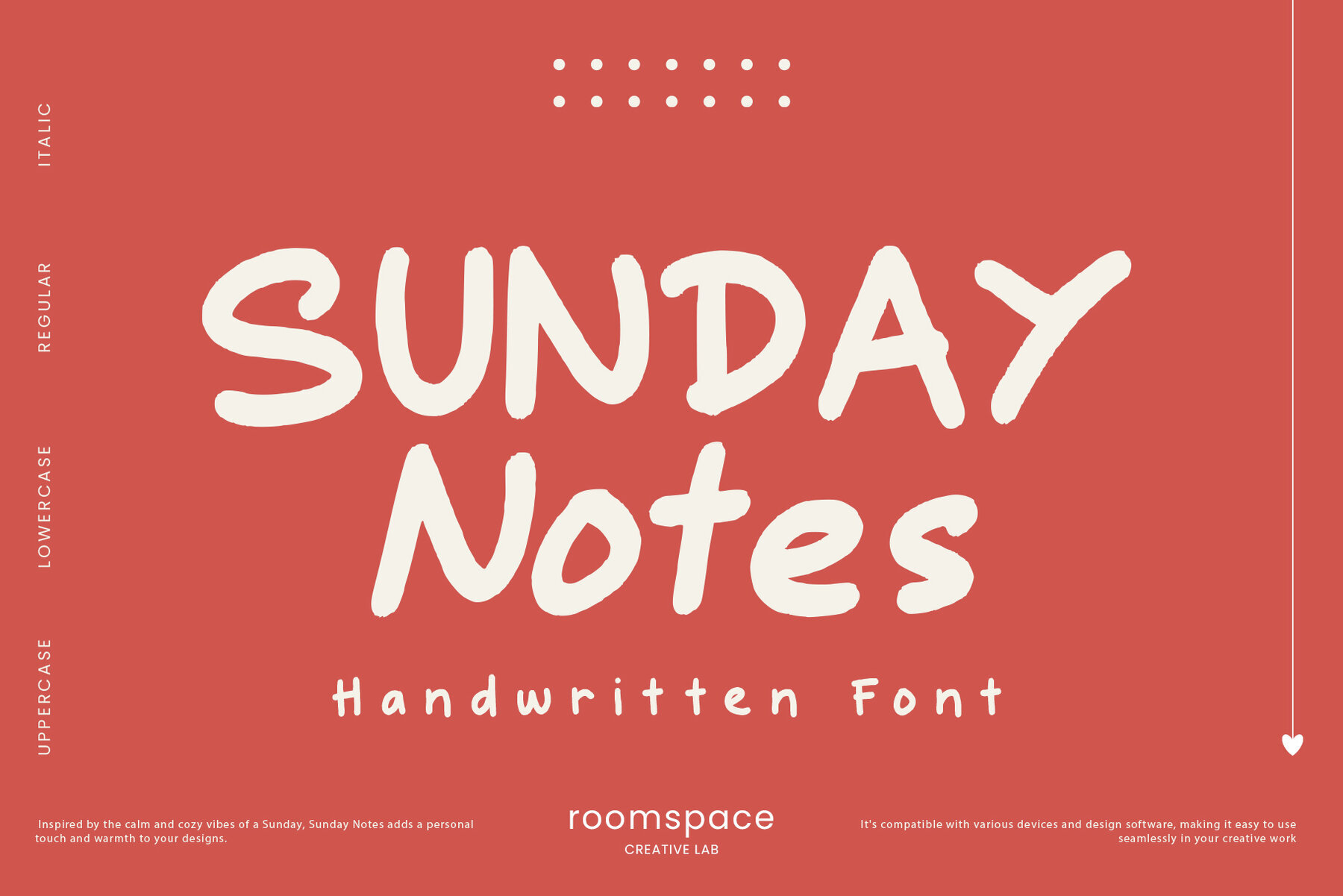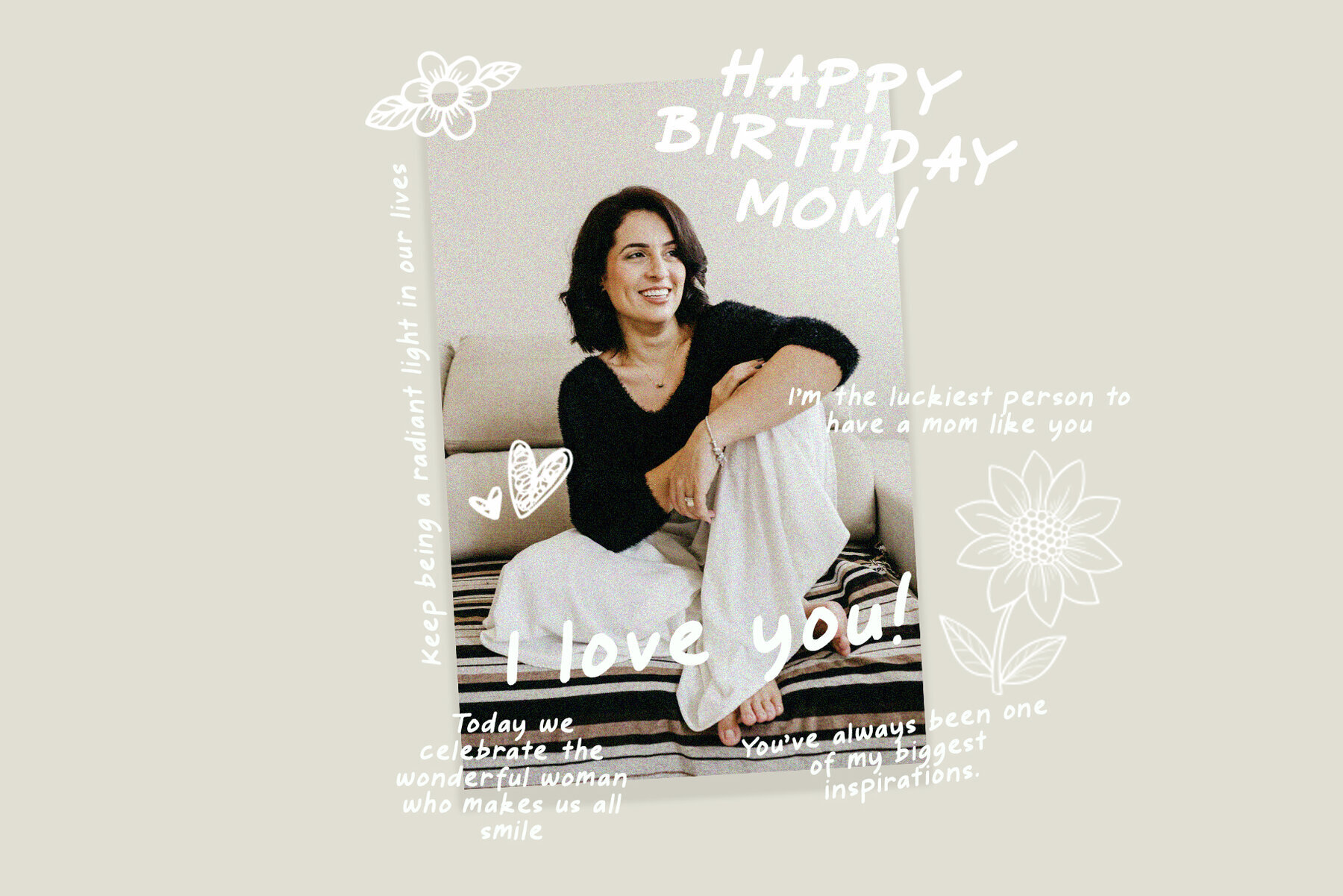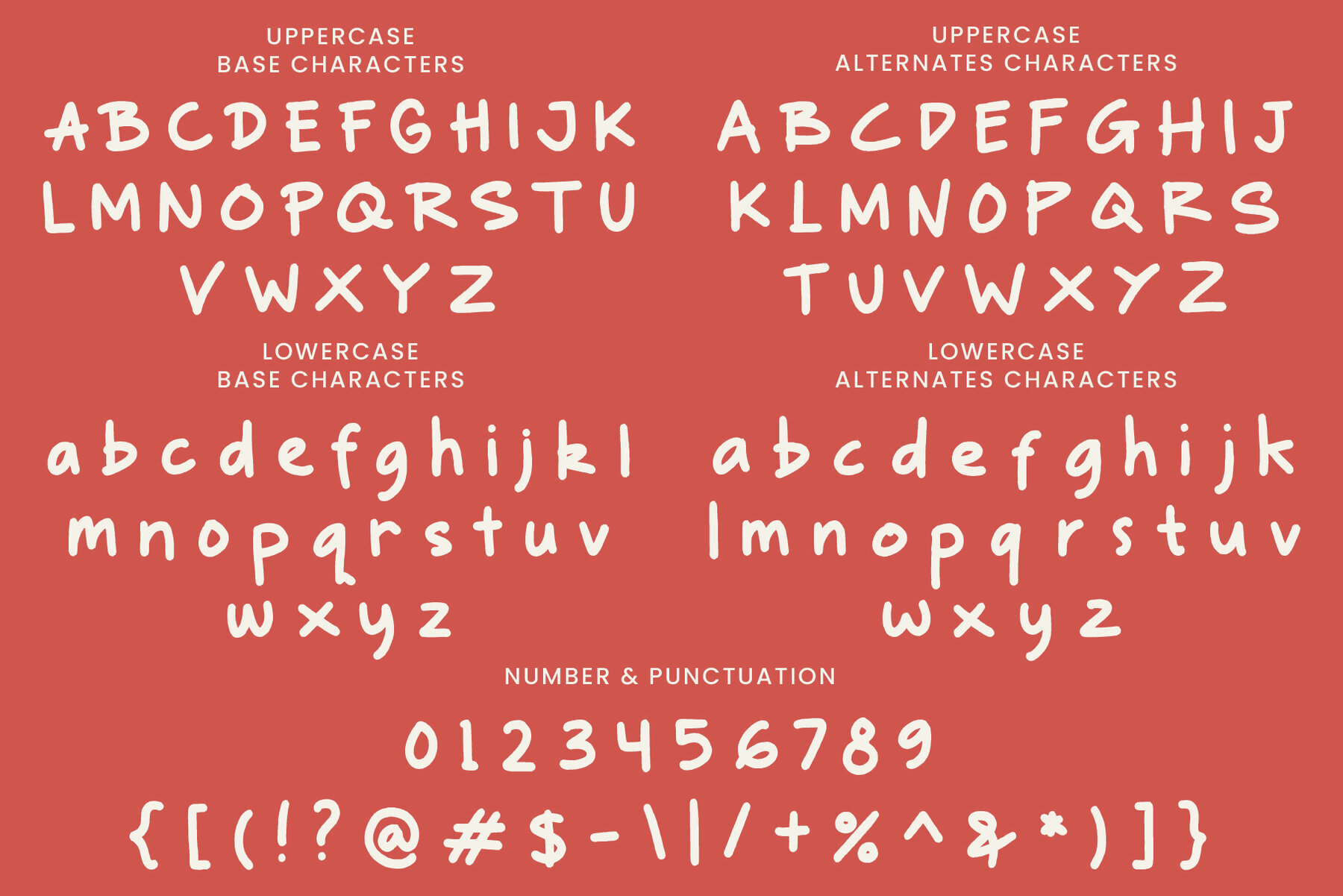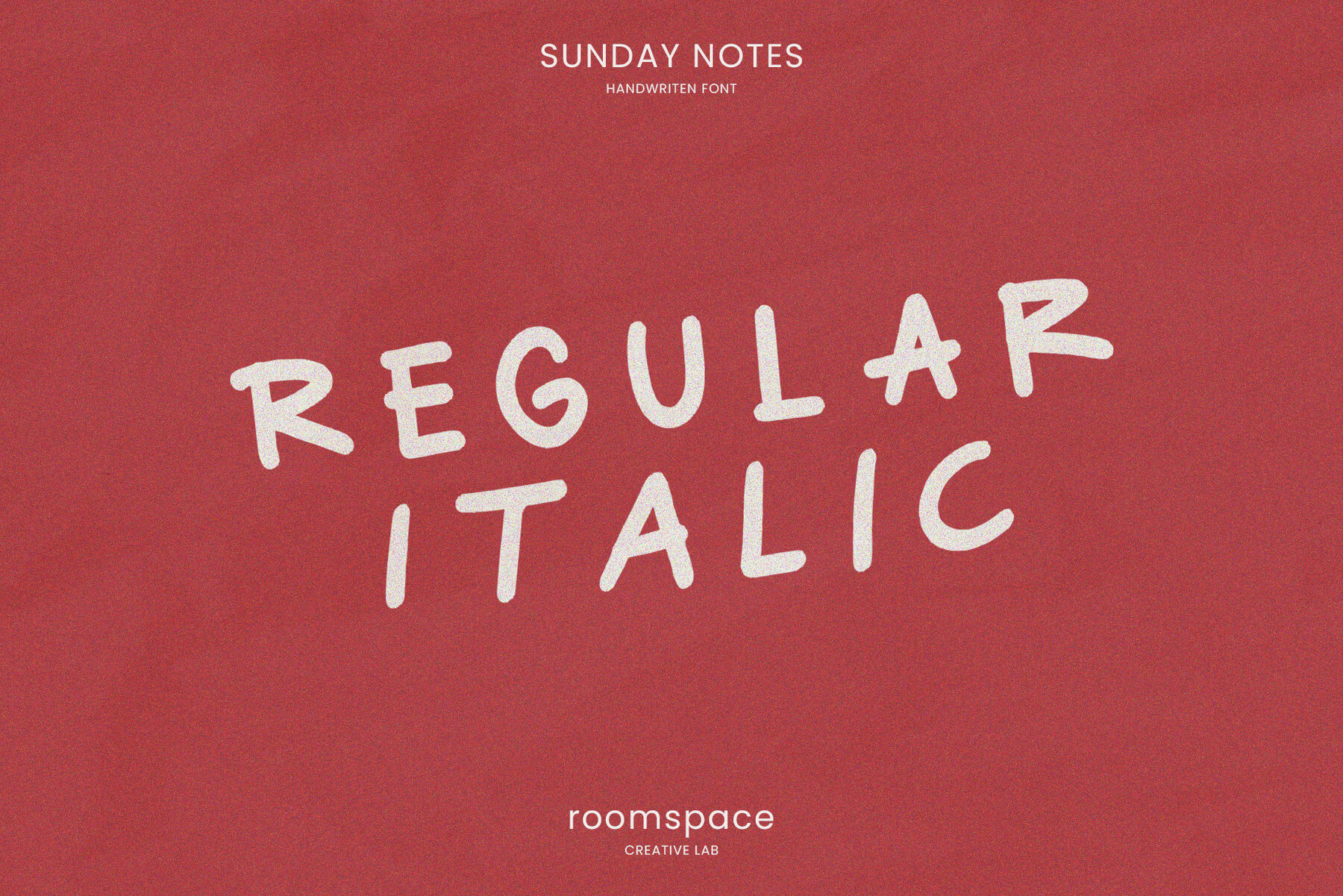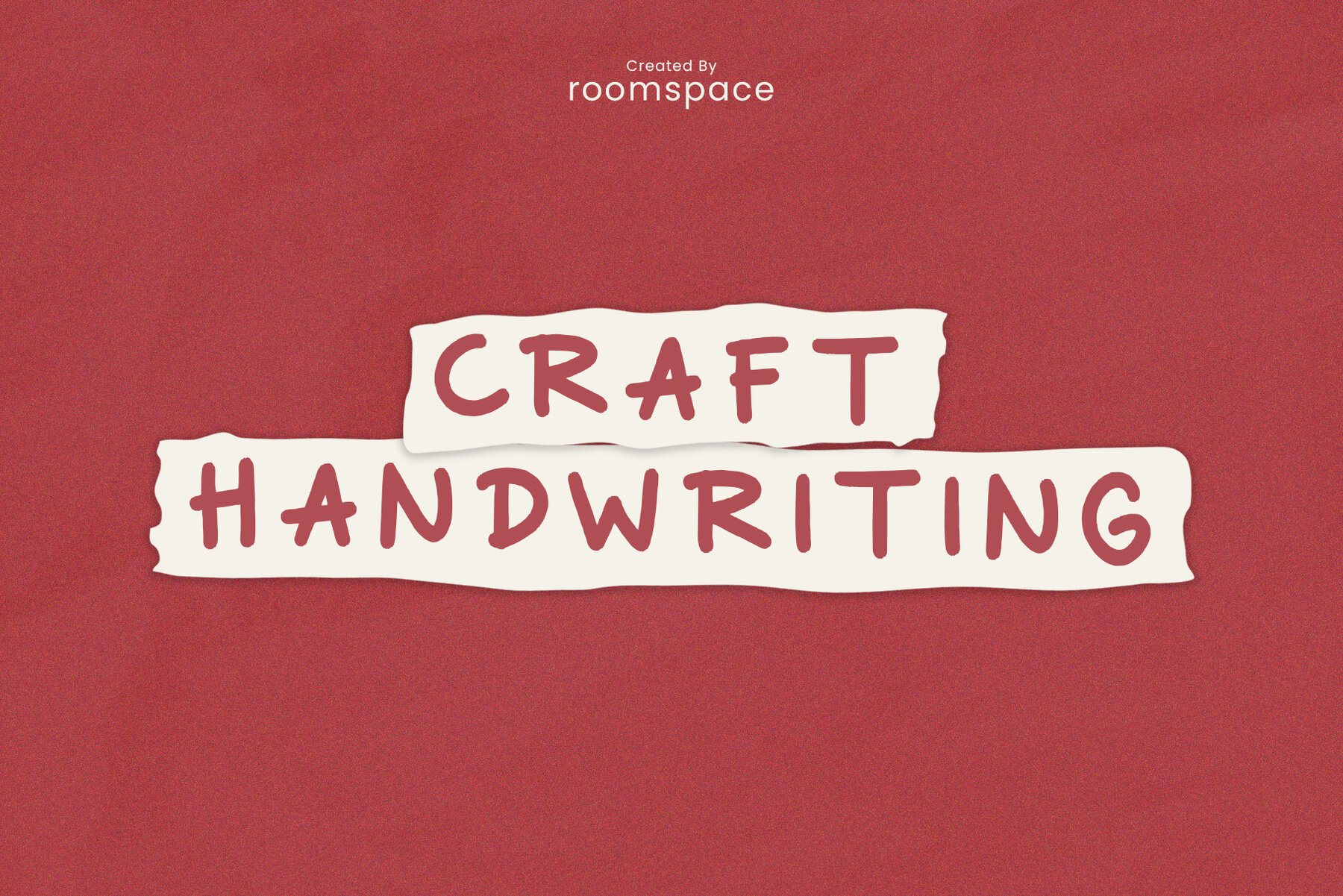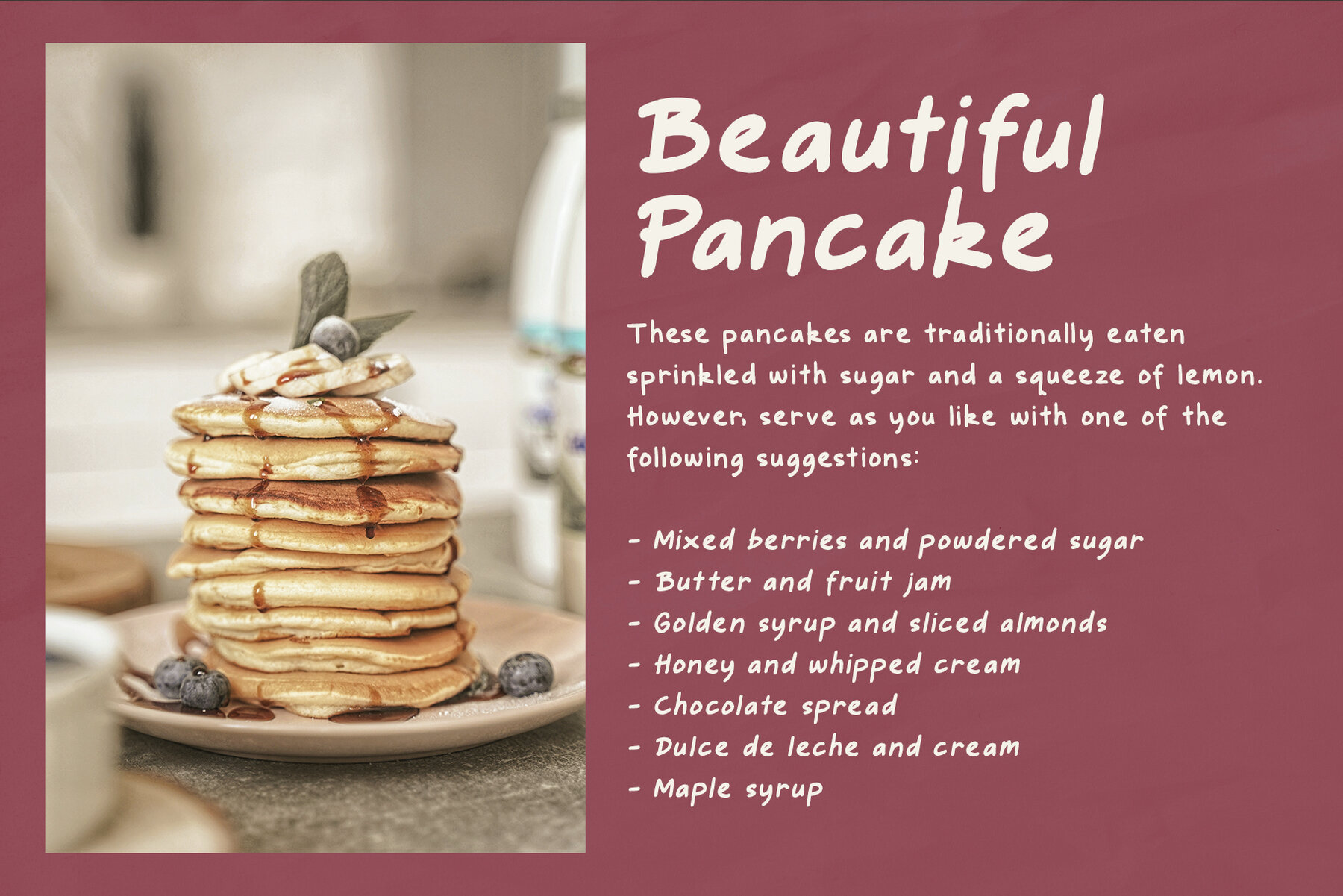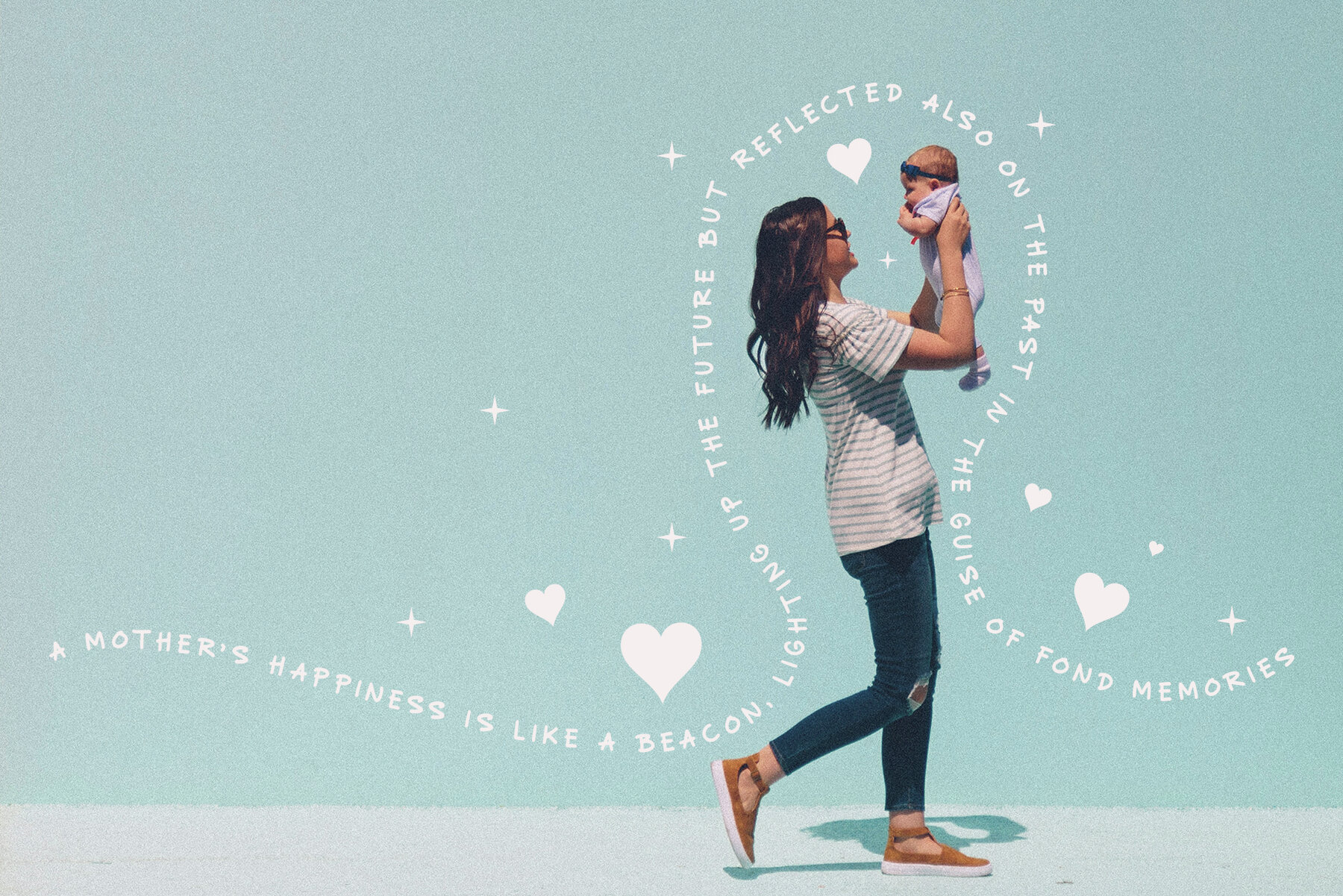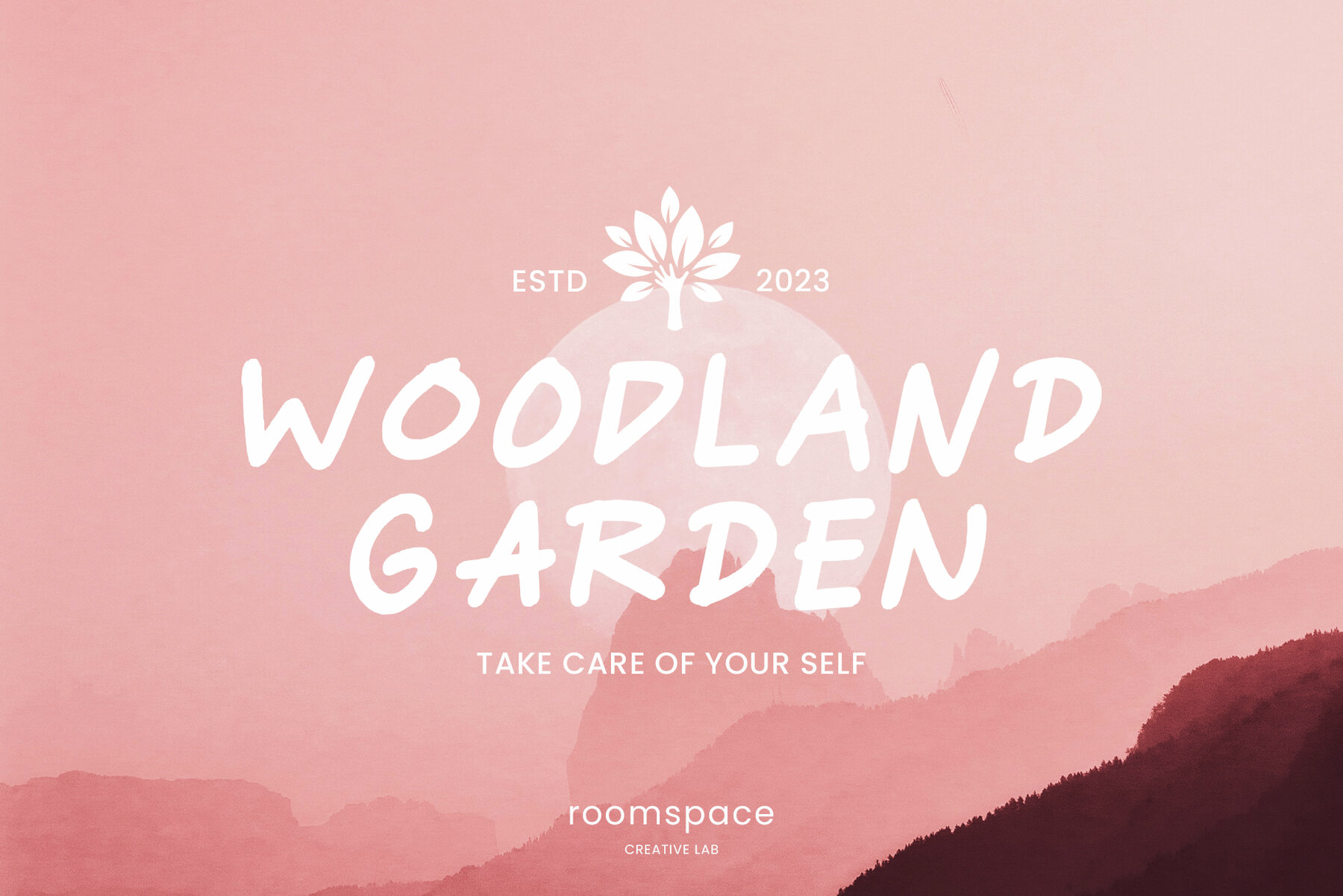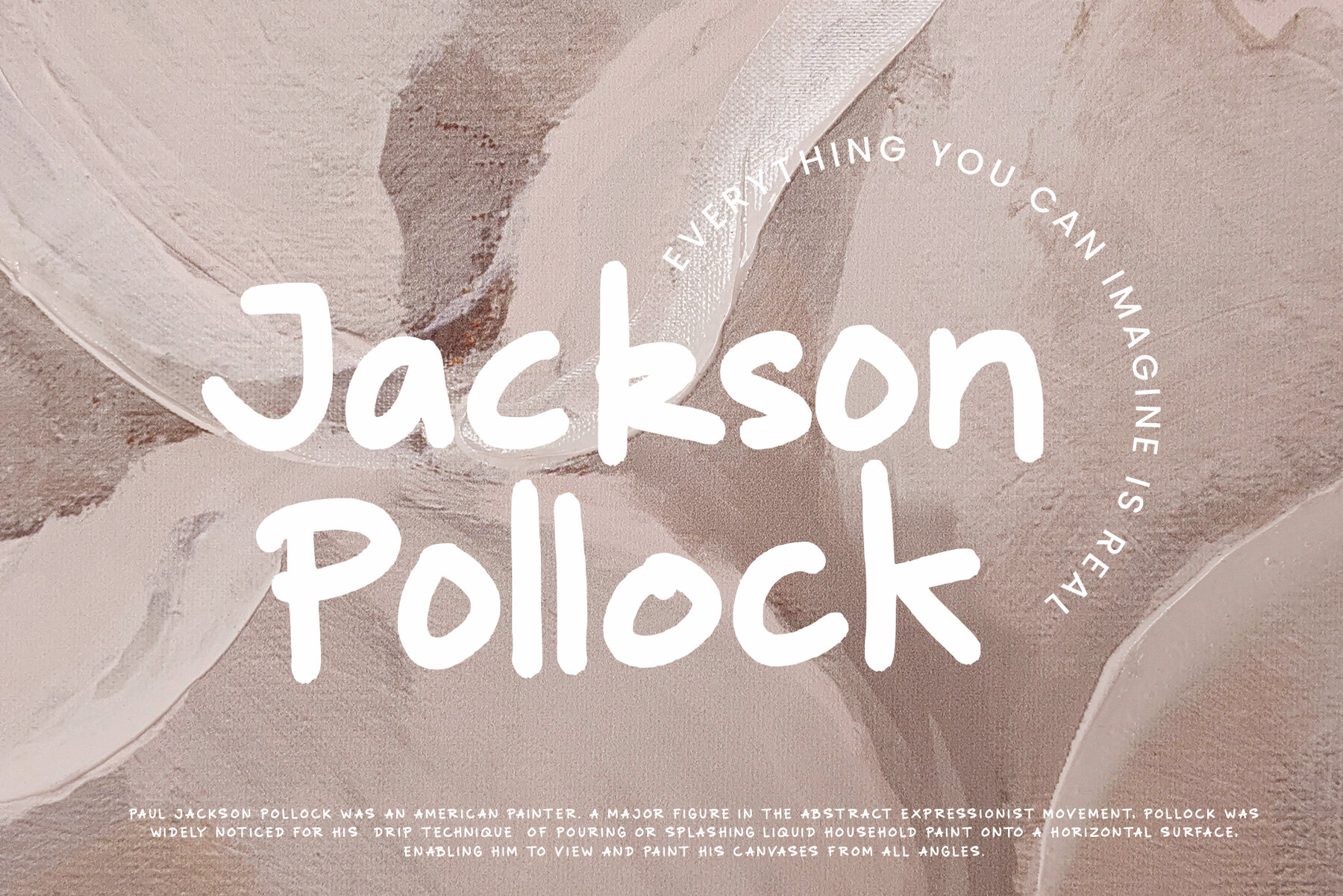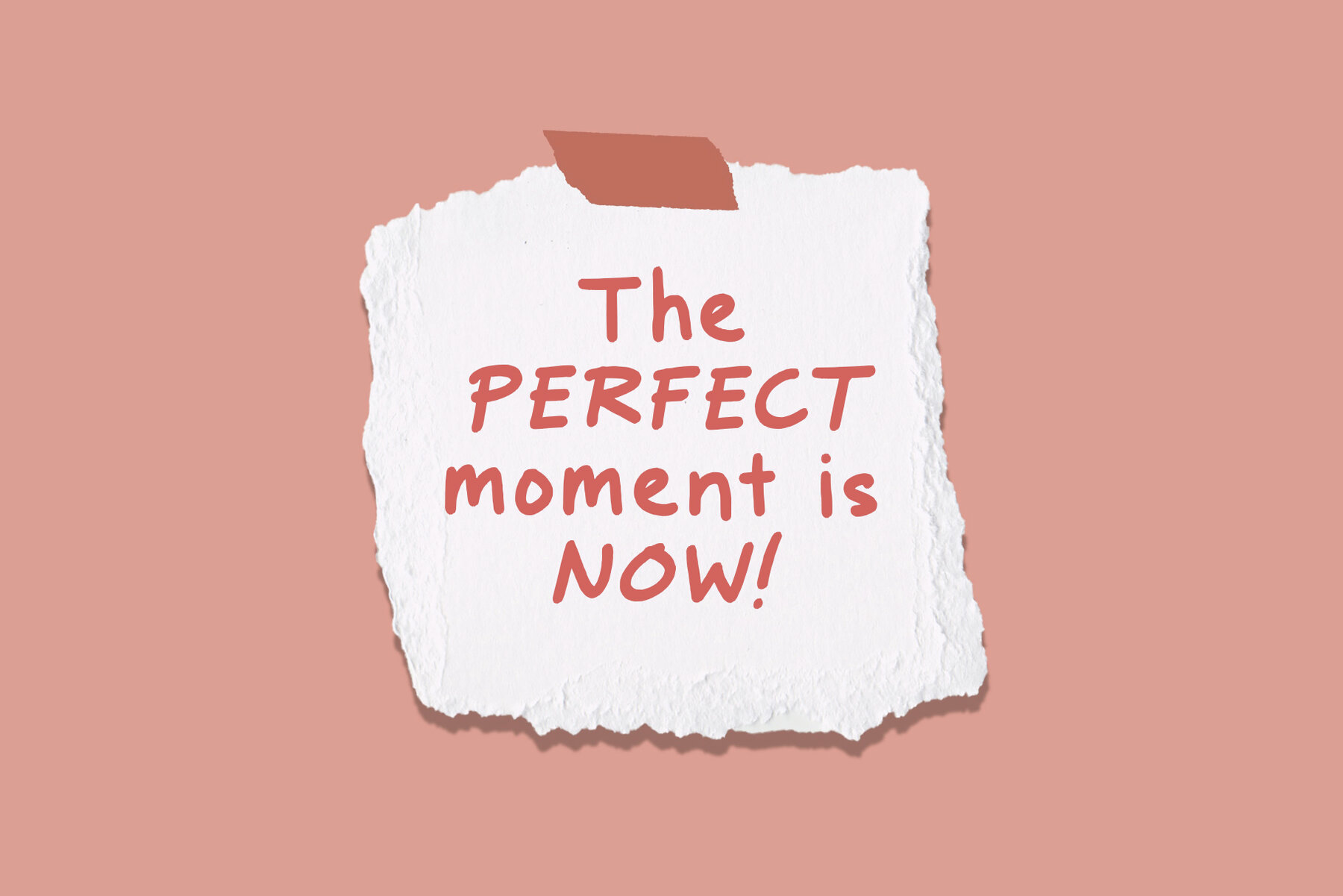
Sunday Notes Font
Introducing Sunday Notes, a unique and beautiful handwritten font crafted with love and precision. This font offers a relaxed and friendly writing style, perfect for your creative projects. Inspired by the calm and cozy vibes of a Sunday, Sunday Notes adds a personal touch and warmth to your designs. Sunday Notes comes in two main variations: Regular and Italic, allowing you to express your creativity even more. Each letter in this font also offers multiple alternatives, providing flexibility to create captivating and eye-catching text. With Sunday Notes, you can bring a warm and friendly atmosphere to projects like logo design, greeting cards, invitations, merchandise, websites, and more. It's compatible with various devices and design software, making it easy to use seamlessly in your creative work. Whether you're a professional designer or an art enthusiast, Sunday Notes is the perfect choice to add a personal touch and beauty to your projects. Let's create stunning designs using Sunday Notes as the captivating handwritten font. Now, you're ready to introduce Sunday Notes to the world and inspire others with the beauty and warmth of this handwritten font. What did you get?